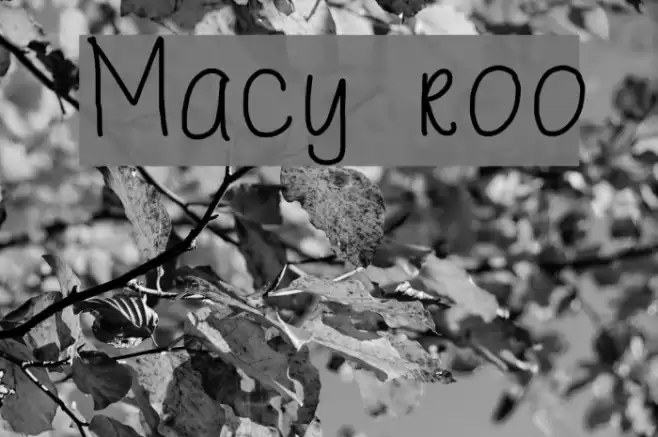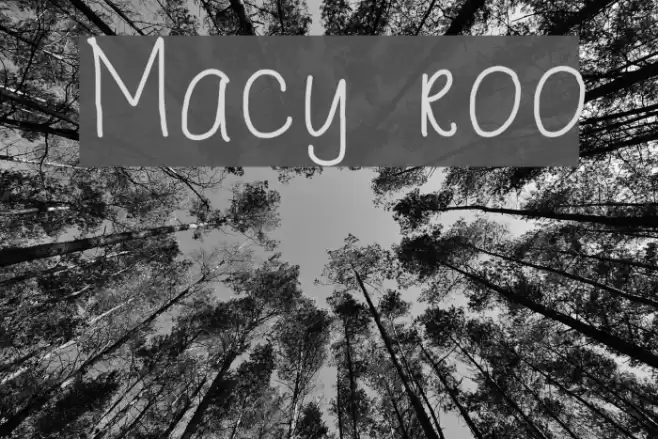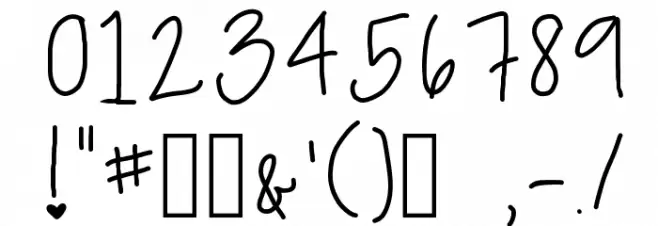
Macy roo Font
Macy roo Description
This font features a playful and casual handwritten style, characterized by its irregular strokes and slightly uneven baseline, giving it a whimsical and friendly appearance. The uppercase letters are bold and slightly larger than the lowercase, which are more rounded and softer in form. The numerals maintain the same playful style, with a consistent stroke width that adds to the font's legibility. Special characters are included, matching the overall aesthetic with a touch of creativity. This font's informal and approachable nature makes it suitable for projects that require a personal touch.
A playful, handwritten font with a whimsical and friendly style from Handwritten fonts.
- Proposed Projects: Ideal for greeting cards, children's books, casual invitations, and social media graphics.
- Overall Style: Casual
- Use Case: Headlines, Informal text, Creative projects